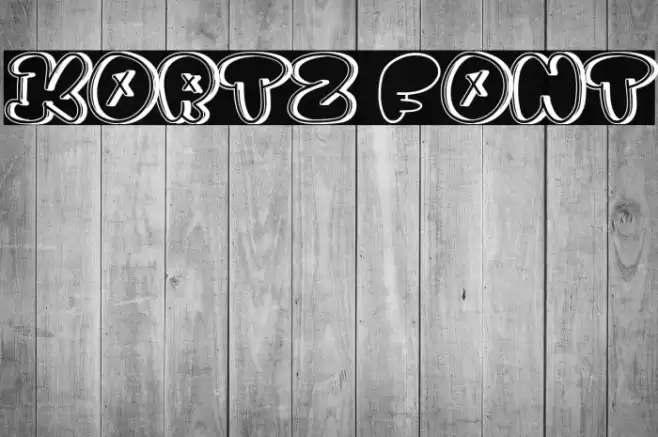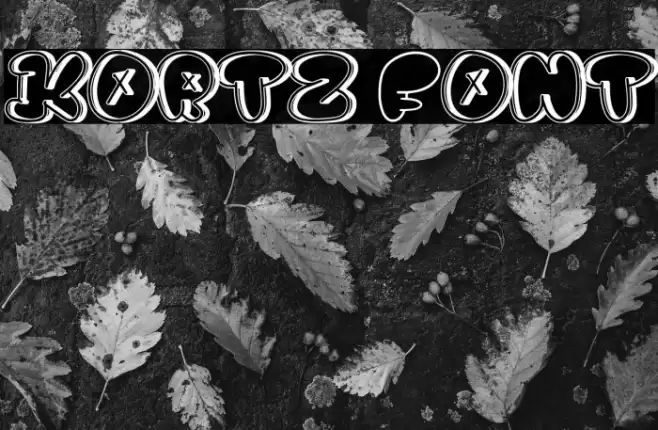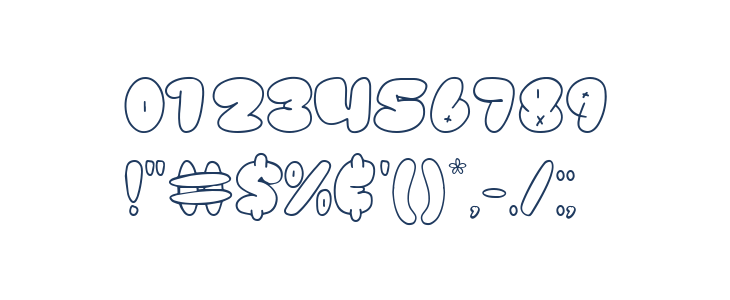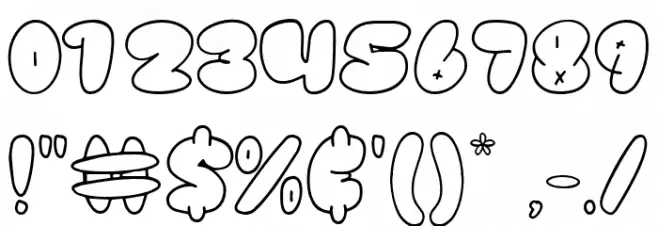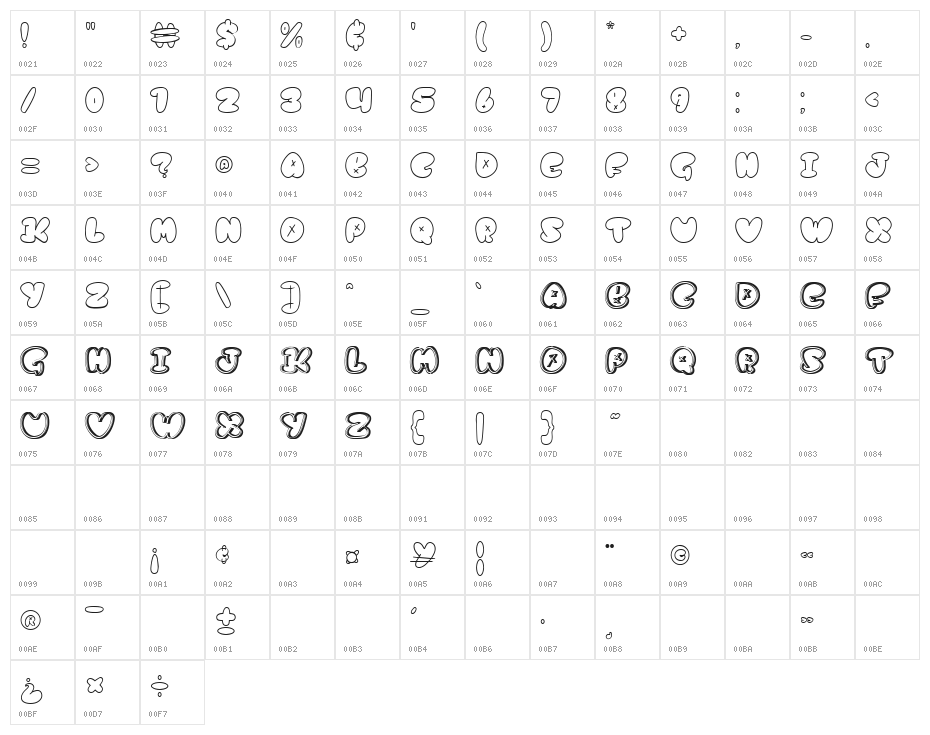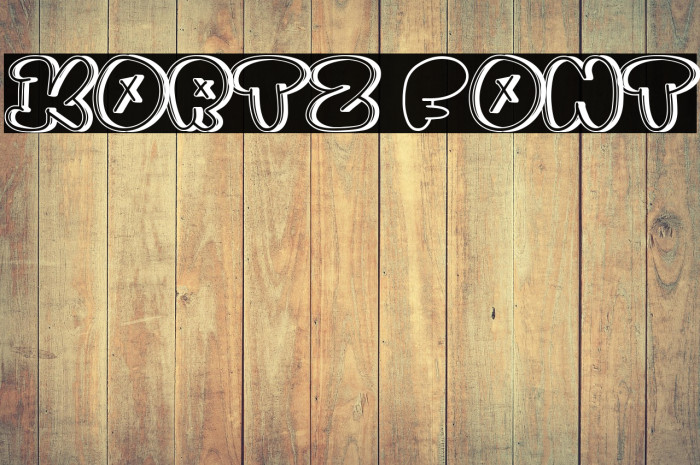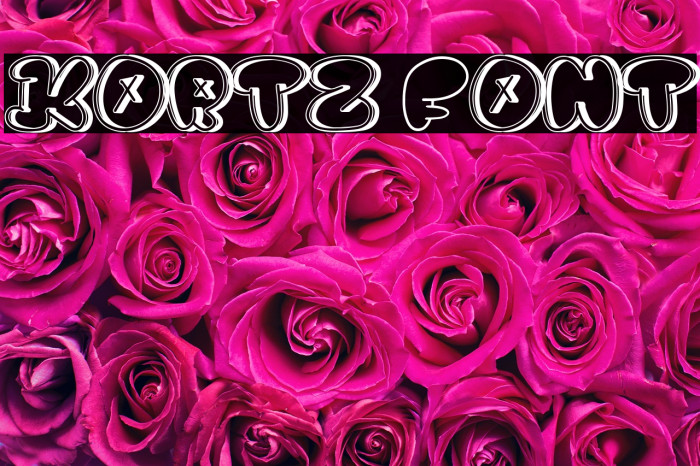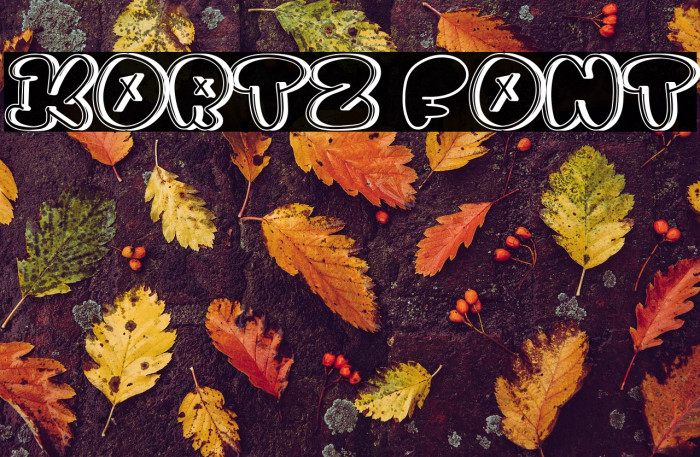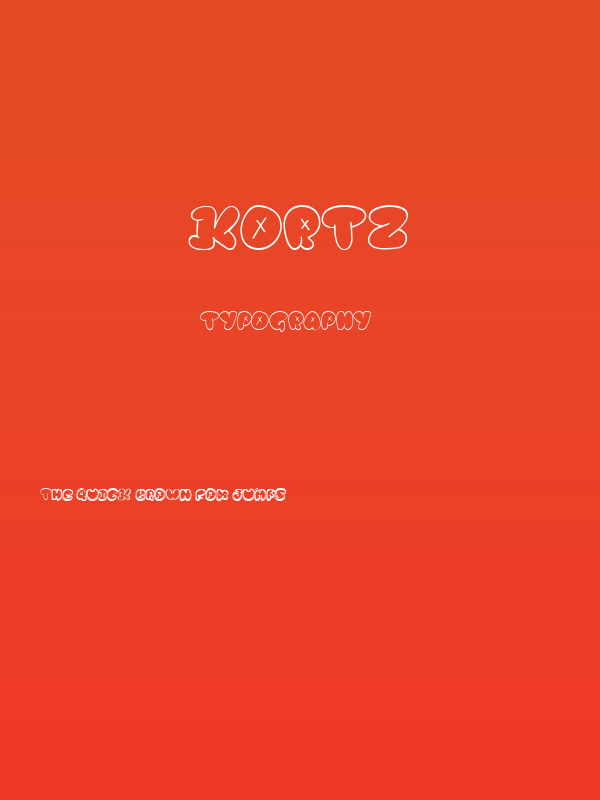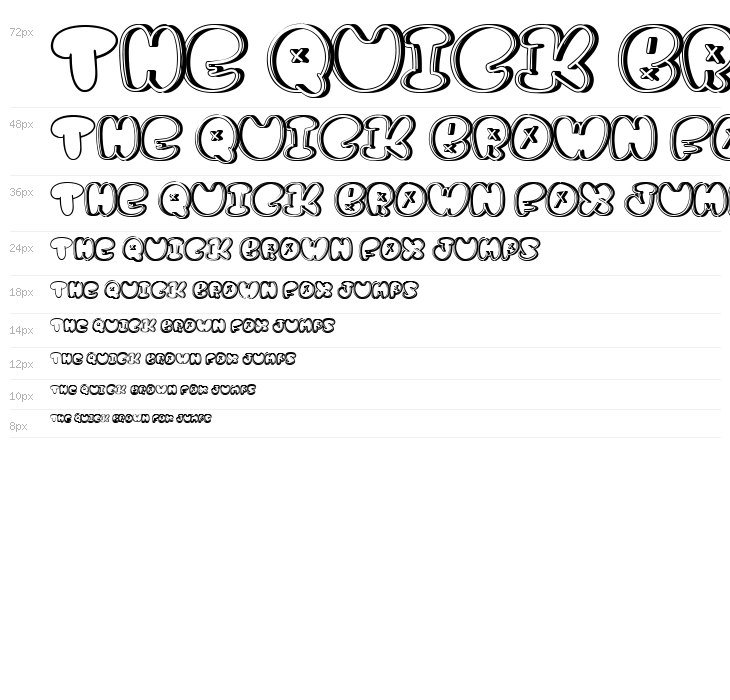
kortz Font
kortz Description
This playful and whimsical font features bold, rounded characters with a unique, hand-drawn style. Each letter is outlined, creating a bubble-like appearance that adds a sense of fun and creativity. The font includes both uppercase and lowercase letters, as well as numbers and a variety of special characters. The design incorporates subtle irregularities, giving it a casual, informal feel. This font is perfect for projects that require a lighthearted and approachable aesthetic, such as children's books, party invitations, or playful branding. The characters are evenly spaced, ensuring readability while maintaining a lively and energetic vibe.
A playful, bubble-like font with bold, rounded characters and a hand-drawn style from Regular fonts.
- Font: kortz
- Proposed Projects: Ideal for children's books, party invitations, playful branding, and creative posters.
- Overall Style: Playful, Whimsical